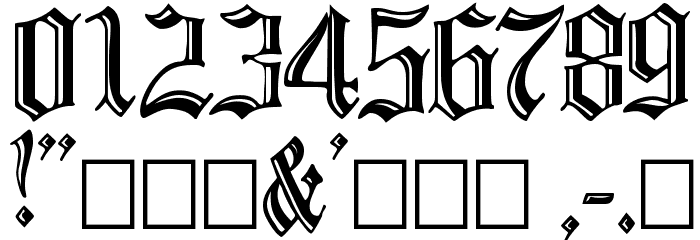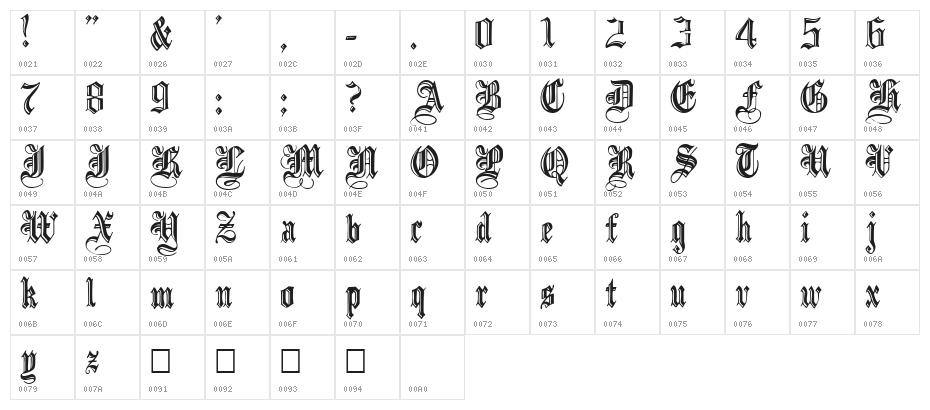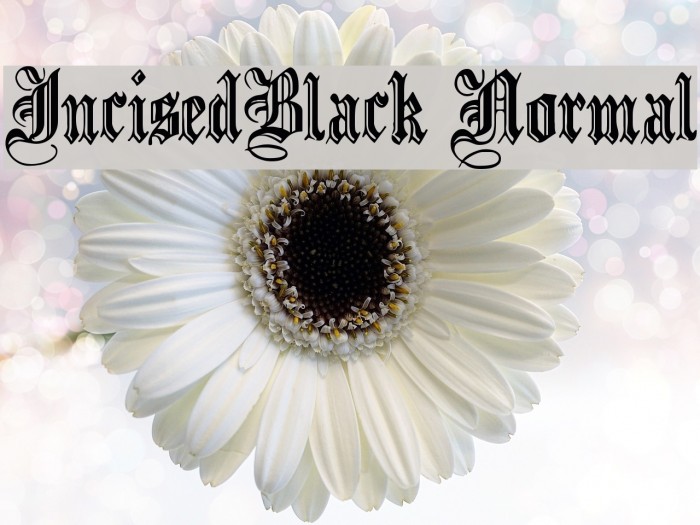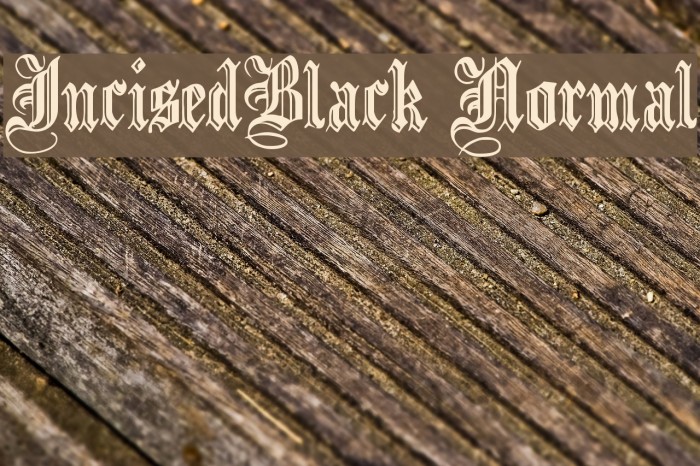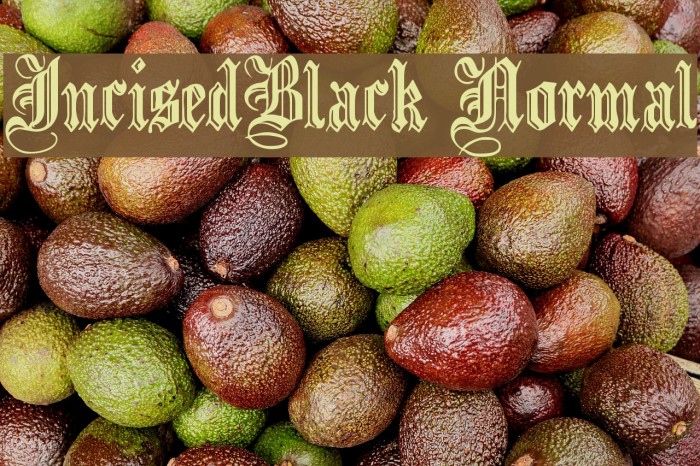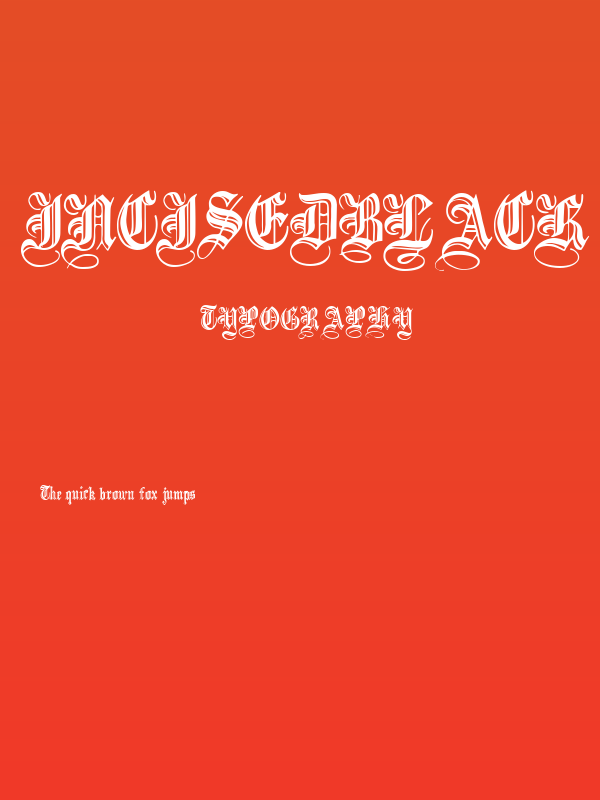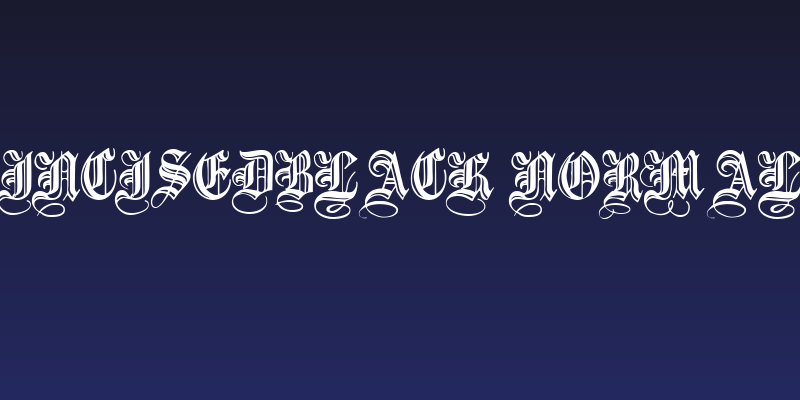
IncisedBlack Normal Font
IncisedBlack Normal Description
This font exhibits a classic blackletter style, characterized by its ornate and intricate design. The uppercase letters are embellished with elaborate flourishes, giving them a regal and historical appearance. The lowercase letters maintain the traditional blackletter form with sharp angles and bold strokes, providing a strong visual impact. Numbers and special characters follow the same stylistic approach, ensuring consistency across all glyphs. The overall aesthetic is reminiscent of medieval manuscripts, making it suitable for projects that require a touch of antiquity and elegance.
| Use Case | Logos, Headlines, Decorative purposes |
| Proposed Projects | Ideal for historical documents, certificates, book covers, and branding that requires a vintage or medieval touch. |